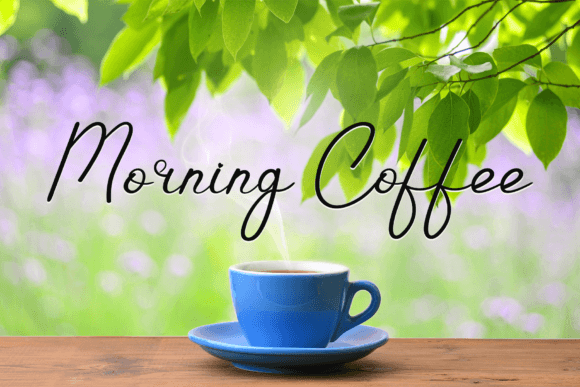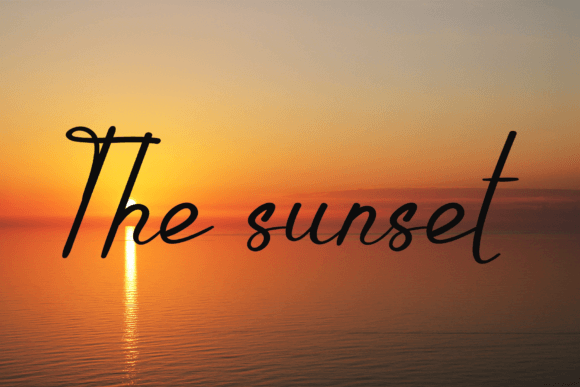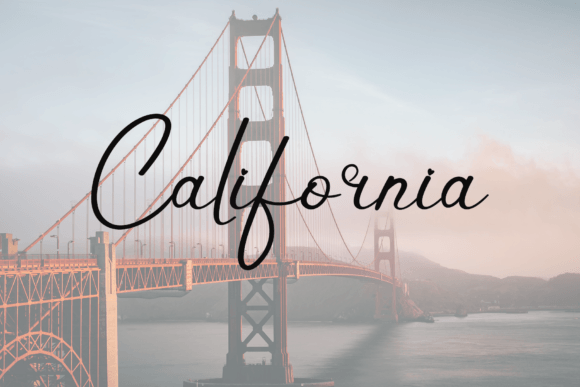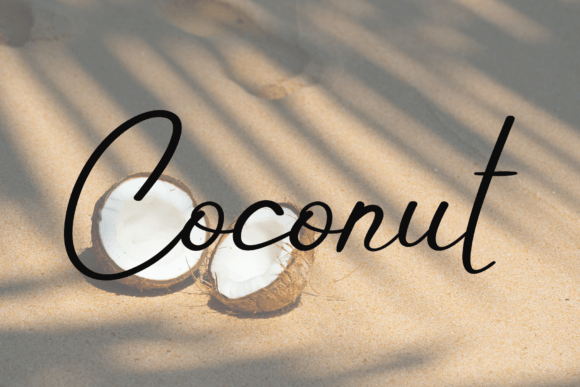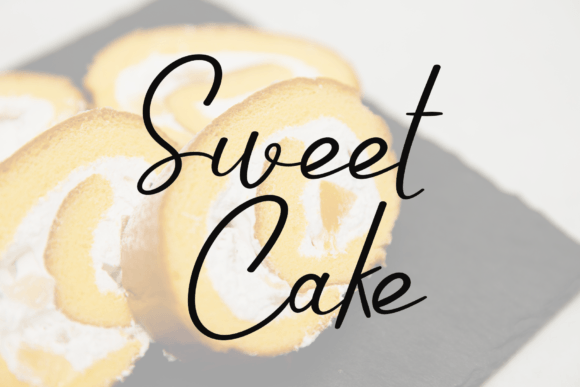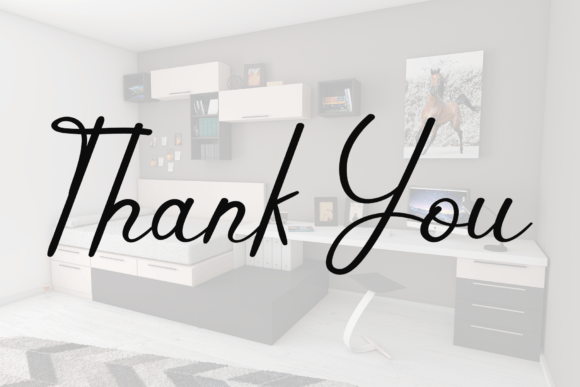
Minimalist Font
About Minimalist Font
“Minimalist” is a charming and sweet handwritten script font that brings a lovely and gentle touch to your designs. With its delicate nature, this font is crafted to impart joy, romance, and a delightful aesthetic to a wide variety of design projects.
The gentle strokes and flowing script style of “Minimalist” add a personal touch, creating a warm and inviting atmosphere in your text. This font is designed to enhance your projects with its delightful and romantic qualities, making it a versatile choice for various creative endeavors.
Whether you’re working on minimalist designs or any project that demands a sweet and gentle font, “Minimalist” is well-suited for the task. Its versatility ensures that it looks gorgeous across a range of design contexts, bringing a joyful and romantic touch to your creations.
Immerse yourself in the loveliness of “Minimalist,” and you’ll discover its capacity to add a unique and heartwarming charm to your designs. Let this font be the source of delight and warmth, infusing your projects with a touch of sweetness and romance.
In summary, “Minimalist” is more than just a font; it’s a design element that carries a lovely and sweet aesthetic. Add a joyful and romantic touch to your minimalist-themed projects and beyond with the gentle and delightful style of “Minimalist.”